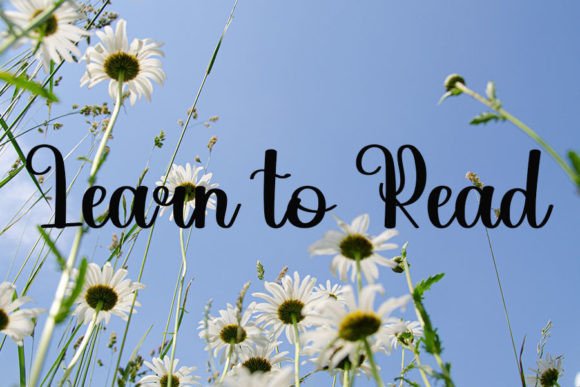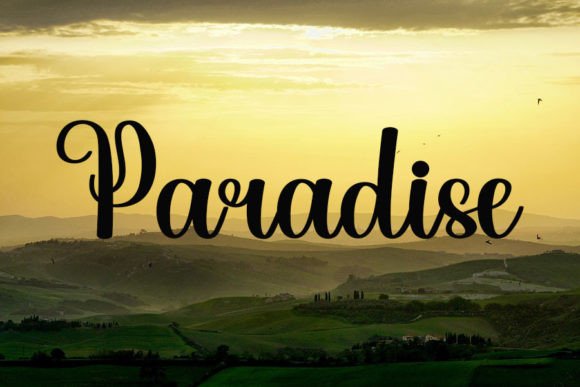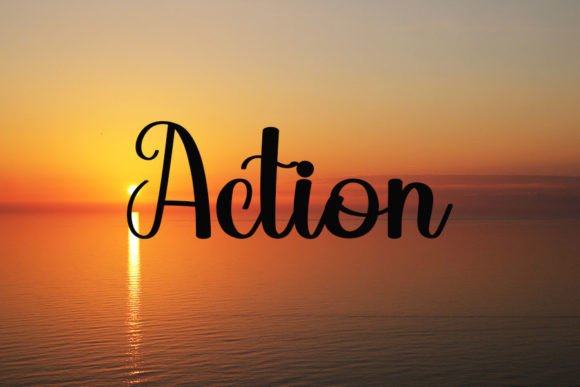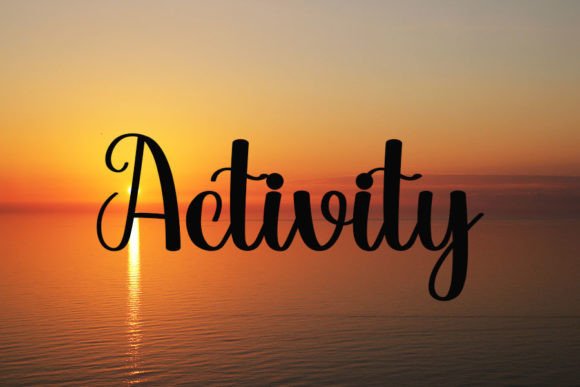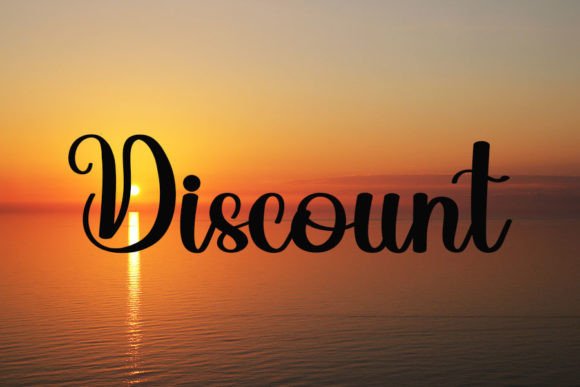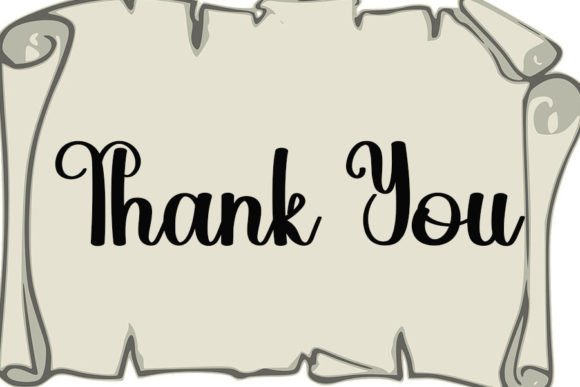
Bible Study Font: Elevate Your Designs with Elegance and Timelessness
Are you a designer, crafter, or DIY enthusiast looking for a unique and beautiful font to add a touch of elegance to your projects? Look no further than the Bible Study Font, a stunning handwritten font that exudes sophistication and timelessness. In this article, we’ll dive into the world of Bible Study Font, exploring its features, benefits, and uses, as well as provide tips on how to make the most of this incredible font.
What is Bible Study Font?
Bible Study Font is a neat and beautiful handwritten font that boasts an elegant touch, making it perfect for a wide range of projects. Its incredibly distinct and timeless style is sure to capture the hearts of designers and crafters alike. Whether you’re working on a logo, branding materials, invitations, or social media graphics, Bible Study Font is the perfect choice to add a touch of sophistication and refinement.
Key Features of Bible Study Font
- Handwritten elegance: Bible Study Font features a beautiful, handwritten style that adds a touch of warmth and personality to any design.
- Timeless appeal: Its classic and timeless design ensures that your projects will never go out of style.
- Distinctive style: The font’s unique and distinctive style sets it apart from other fonts, making it perfect for designers and crafters who want to stand out.
- Versatile: Bible Study Font can be used for a wide range of projects, from logos and branding materials to invitations and social media graphics.
Benefits of Using Bible Study Font
So, why choose Bible Study Font for your next project? Here are just a few benefits of using this incredible font:
- Adds elegance and sophistication: Bible Study Font adds a touch of elegance and sophistication to any design, making it perfect for projects that require a level of refinement.
- Enhances creativity: The font’s unique and distinctive style inspires creativity and imagination, helping you to think outside the box and come up with innovative designs.
- Perfect for DIY projects: Bible Study Font is a great choice for DIY enthusiasts and crafters who want to add a personal touch to their projects.
Tips for Using Bible Study Font
To make the most of Bible Study Font, here are a few tips to keep in mind:
- Pair with complementary fonts: Pair Bible Study Font with complementary fonts to create a unique and visually appealing design.
- Experiment with colors: Experiment with different colors and textures to add depth and interest to your design.
- Use for headings and titles: Use Bible Study Font for headings and titles to add a touch of elegance and sophistication.
- Don’t be afraid to get creative: Don’t be afraid to experiment and try new things with Bible Study Font – its versatility and flexibility make it perfect for a wide range of projects.
In conclusion, Bible Study Font is a beautiful and elegant handwritten font that is perfect for designers, crafters, and DIY enthusiasts. Its timeless appeal, distinctive style, and versatility make it a great choice for a wide range of projects. Whether you’re looking to add a touch of sophistication to your designs or simply want to try something new, Bible Study Font is a must-have font that is sure to inspire and delight.